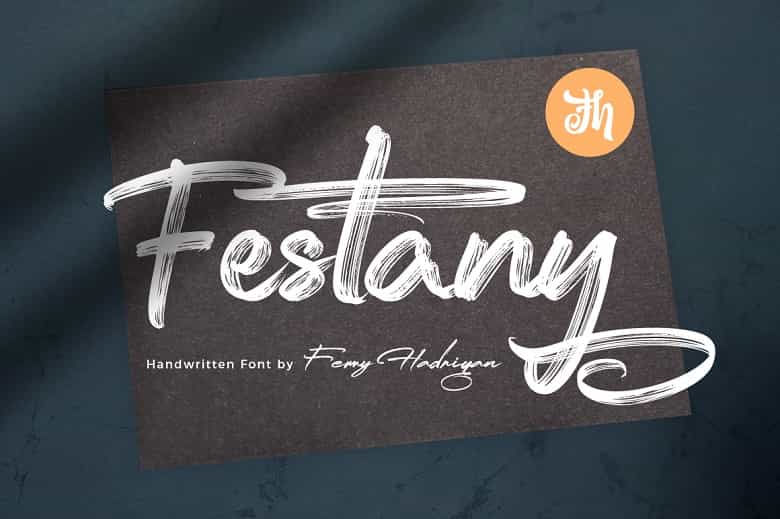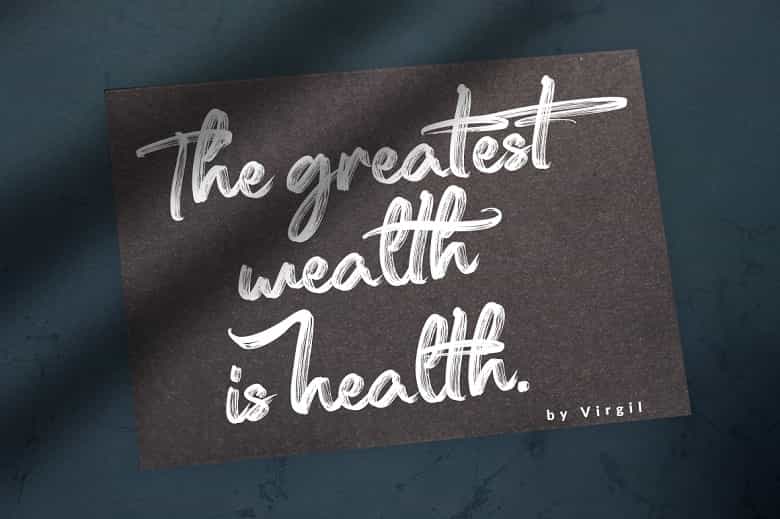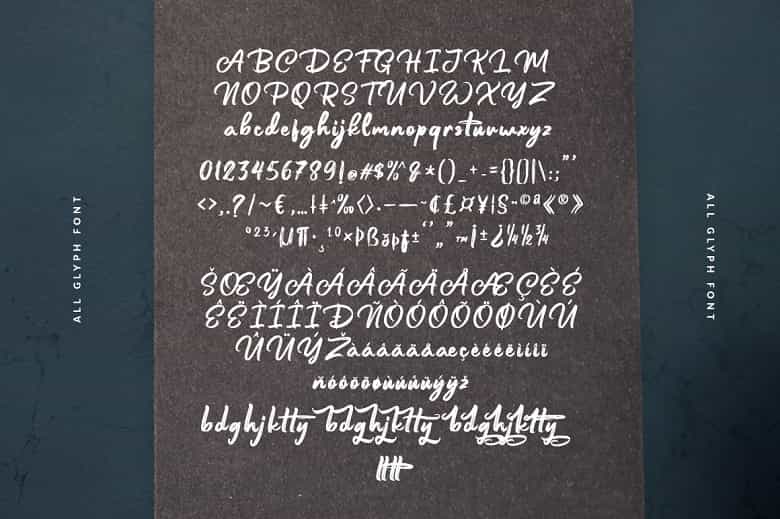
Discover Festany Font, part of the Brush collection—a versatile and unique font perfect for adding a personal touch to your projects. Download it for free and enjoy crafting designs with style, from invitations to social media posts. This font is available exclusively for personal use, giving you the freedom to create without limits. Unlock your creativity with Festany Font today!
Festany is a brush script font that mimics text written with a brush, brush pen or any brush tipped instrument. It is prepared and posted by Ferry Hadriyan. Perfect for design, element design, wedding, event, t-shirt, logo, badges, sticker, and great work, and etc.